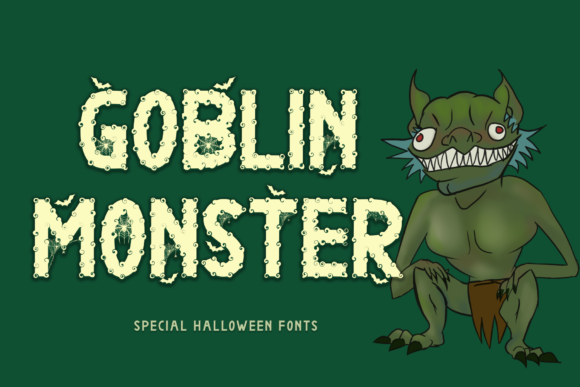
Unleash your creativity and step into a world of enchantment with Goblin Monster Font, a mesmerizing display font that will cast a spell on your designs. This captivating creation by yogaletter6 is the perfect companion for unleashing your imagination and conjuring up captivating projects. Prepare to be captivated by its eerie charm, making it an ideal choice for Halloween-themed ventures or any project seeking a touch of the extraordinary.
So, what makes Goblin Monster Font a must-have in your font collection?
1. **An Enchanting Display:** With its captivating glyphs and ligatures, Goblin Monster Font is a visual masterpiece that commands attention. Its distinct design adds a touch of mystery and intrigue to your creations, leaving a lasting impression on your audience.
2. **The Perfect Halloween Companion:** Embrace the spooky season with Goblin Monster Font, the ultimate choice for Halloween-themed projects. Its eerie charm will add an extra layer of enchantment to your invitations, posters, flyers, and social media graphics. Let your creativity run wild and create spellbinding designs that will leave your audience spellbound.
3. **Boundless Creative Possibilities:** Unleash your imagination and explore the limitless creative possibilities Goblin Monster Font offers. Whether you're crafting logos, branding materials, social media posts, or any other visual project, this font will add a touch of magic and make your designs stand out from the crowd.
5. **A Font That Speaks Volumes:** Goblin Monster Font is more than just a font; it's a storyteller. Its unique characters and distinctive style convey emotions and messages that resonate with your audience. Whether you're aiming for a spooky, playful, or enchanting atmosphere, this font will help you create designs that speak volumes.